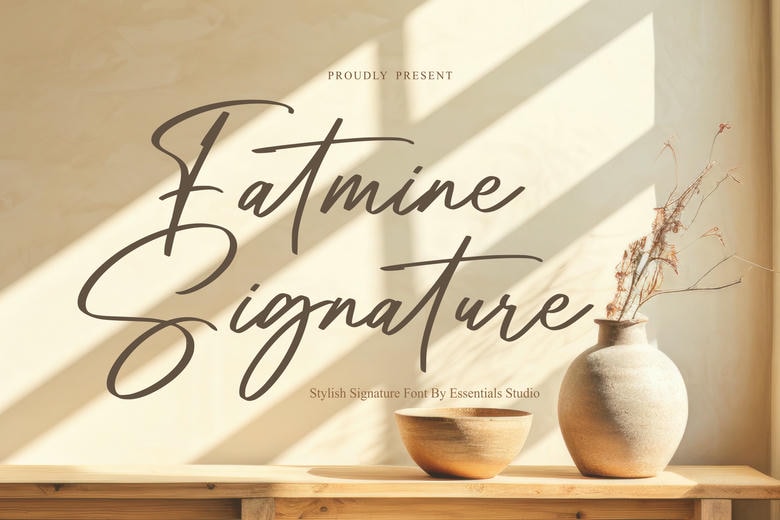
Fatmine Signature Font
Fatmine Signature Font, a Styles and Graphics production from Essentials Studio. This font contains a signature look and is therefore perfect for wedding themes and crafting activities. Filled with sweet touches and finely rounded curving, it is a perfect fit for your typography collection.
It’s not only a font but it is a way of celebrating the beauty of written handwriting statements made even more elegant and fashionable. The Fatmine Signature Font puts a new spin on every piece of artwork with an improved typography language. Take the words, put it with class, put it with Fatmine.